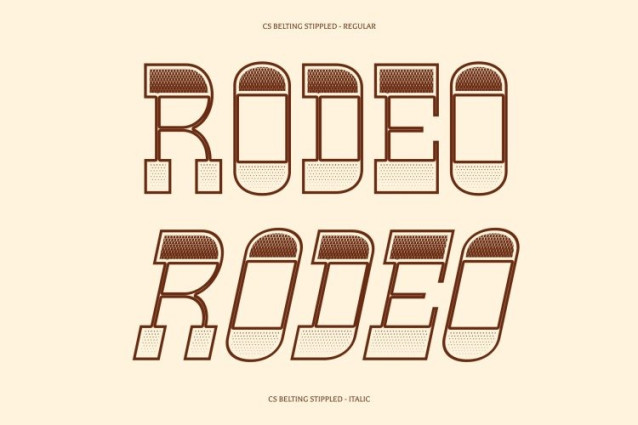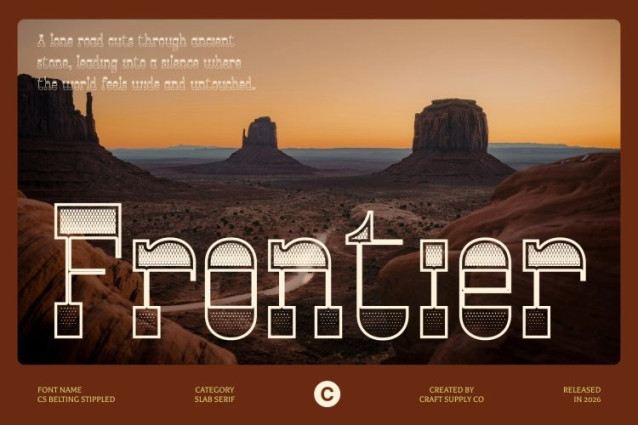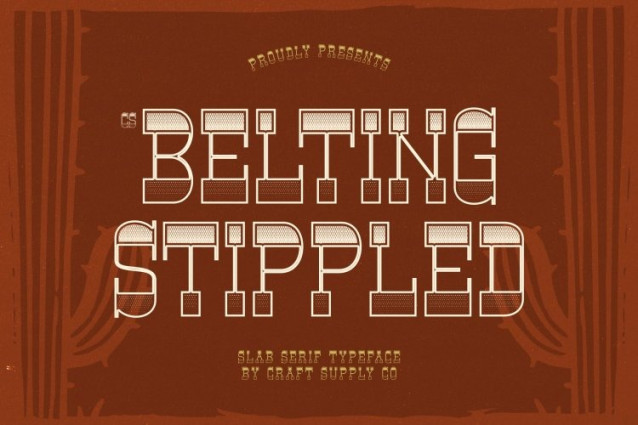
CS Belting Stippled Font
CS Belting Stippled Font – This is a bold Western display font that channels the untamed spirit of the Wild West, now enriched with a dense stippled texture. Inspired by classic frontier signage, wanted posters, and handcrafted wooden lettering, the stippled detailing adds a weathered, tactile quality bringing authenticity and vintage grit to its strong reverse-contrast structure.
Slab Serifs with Textured, Commanding Presence
Defined by slab-like serifs and wide letterforms, delivers a sturdy and authoritative appearance. The broad proportions ensure strong visibility, while the stippled surface enhances depth and rugged personality. This combination creates a grounded, reliable feel that stands firm in bold display settings.
Cowboy Grit with Handcrafted Detail
The dense dotwork texture reinforces the raw energy of frontier life, giving each letter a subtly distressed, timeworn character. Tough yet controlled, the design reflects resilience, independence, and adventure perfect for projects that aim to feel masculine, nostalgic, and bold without sacrificing clarity.
Perfect for Posters, Branding, and Vintage Western Themes
Ideal for rodeo promotions, whiskey labels, outdoor brands, apparel graphics, movie titles, and heritage-inspired packaging, excels in high-impact applications. Its Western flair combined with textured artistry ensures every composition feels authentic, powerful, and visually unforgettable.